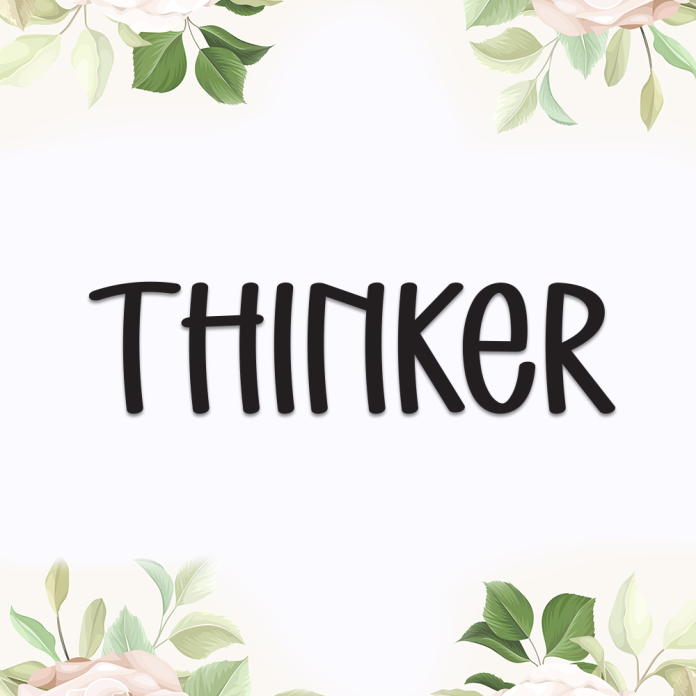
Thinker is a bold and eye-catching display font designed to capture attention and spark curiosity. With its sharp angles, stylish curves, and modern design, Thinker is perfect for making a statement in any creative project.
Whether you're creating headlines, branding, posters, social media graphics, or editorial layouts, Thinker brings a futuristic and innovative vibe that stands out from the crowd.
Unique and modern display letterforms
Ideal for titles, logos, packaging, or event graphics
High-impact design with a professional edge
Let your boldest ideas shine with the strong character of Thinker.